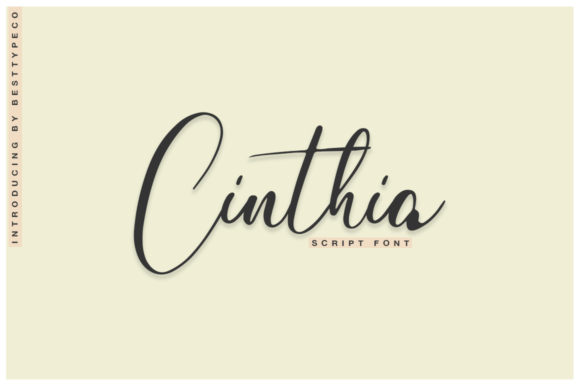
Cinthia Font: A Strong and Authentic Script Font with a Unique Style
In the world of typography, fonts play a crucial role in conveying the tone and personality of a brand or design. With countless options available, finding the perfect font can be overwhelming. However, if you’re looking for a script font that exudes romance and authenticity, look no further than Cinthia Font. In this article, we’ll dive into the world of Cinthia Font, exploring its unique style, features, and uses.
What is Cinthia Font?
Cinthia Font is a script font designed to capture the essence of romance and elegance. Its strong and authentic style makes it an ideal choice for designers, artists, and crafters seeking a unique and captivating font. Cinthia Font boasts a distinctive style that sets it apart from other script fonts, making it perfect for a variety of design projects.
The Unique Style of Cinthia Font
Cinthia Font’s romantic style is one of its most striking features. The font’s flowing curves and elegant lines evoke a sense of sophistication and refinement. The unique style of Cinthia Font can be attributed to its:
- Handwritten feel: Cinthia Font has a distinctly handwritten feel, making it perfect for designs that require a personal touch.
- Flowing curves: The font’s flowing curves and connections between letters create a sense of fluidity and movement.
- Elegant lines: Cinthia Font’s elegant lines and refined strokes add to its sophisticated and romantic appeal.
Features of Cinthia Font
Cinthia Font comes with a range of features that make it an attractive choice for designers. Some of its notable features include:
Uses of Cinthia Font
Cinthia Font’s versatility makes it suitable for a wide range of design projects, including:
- Wedding designs: Cinthia Font’s romantic style makes it perfect for wedding invitations, stationery, and decorations.
- Branding and logos: The font’s unique style and elegance make it an excellent choice for branding and logo designs.
- Social media graphics: Cinthia Font can add a touch of sophistication and romance to social media graphics, including Instagram posts and Facebook covers.
- Packaging design: The font’s elegant lines and refined strokes make it suitable for packaging design, particularly for luxury brands.
Tips for Using Cinthia Font
To get the most out of Cinthia Font, consider the following tips:
- Pair with complementary fonts: Pair Cinthia Font with complementary fonts to create visual interest and hierarchy.
- Experiment with colors: Cinthia Font looks stunning in a range of colors, from soft pastels to rich jewel tones.
- Use for headlines and titles: The font’s elegant style makes it perfect for headlines and titles, adding a touch of sophistication to your designs.
Cinthia Font is a strong and authentic script font with a unique style that is sure to capture your heart. Its romantic style, elegant lines, and refined strokes make it perfect for a variety of design projects. Whether you’re a designer, artist, or crafter, Cinthia Font is an excellent choice for adding a touch of sophistication and romance to your work.